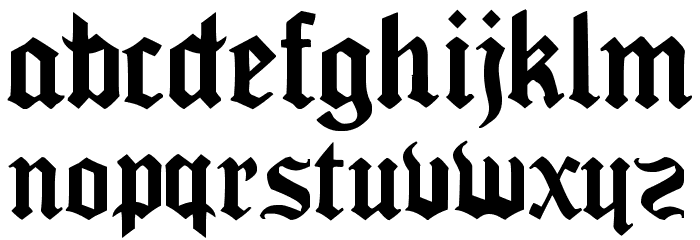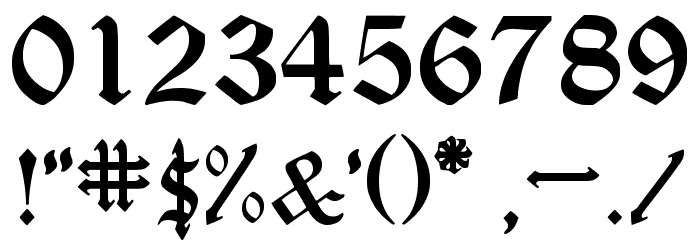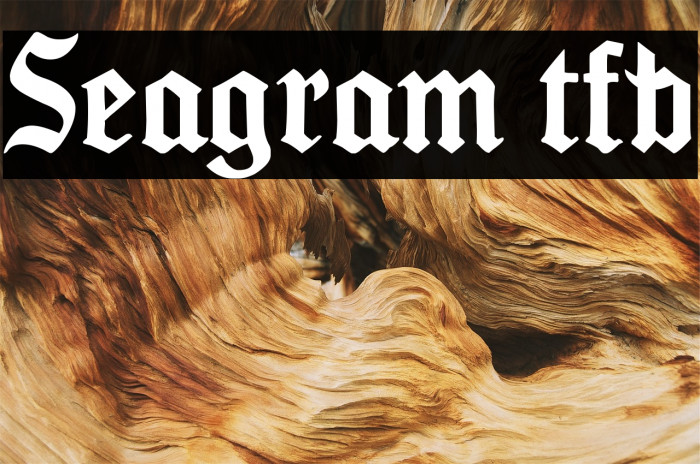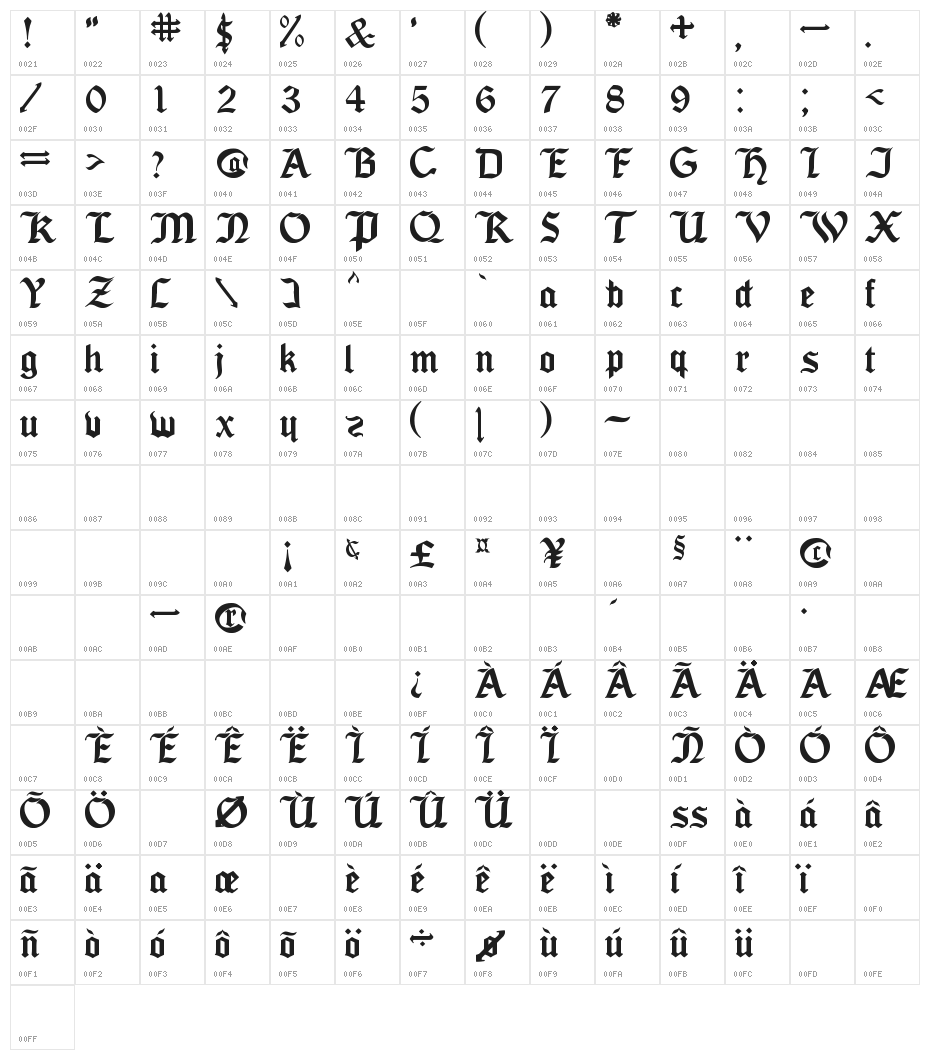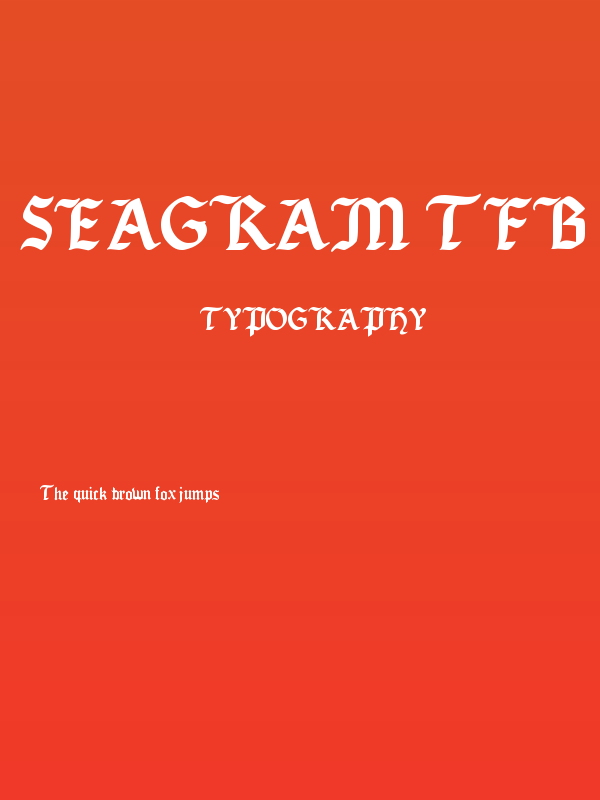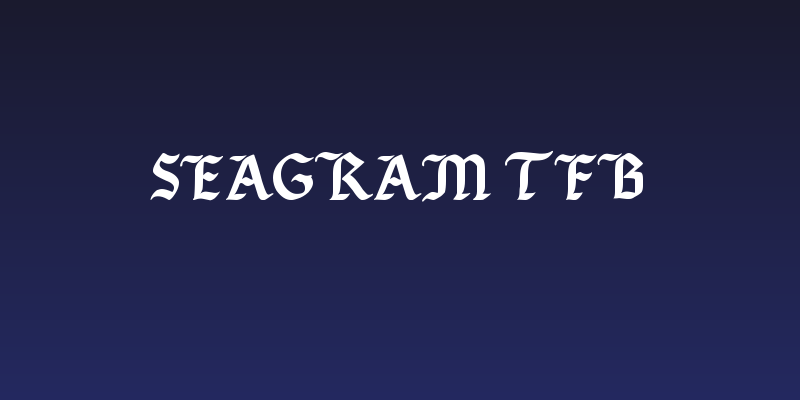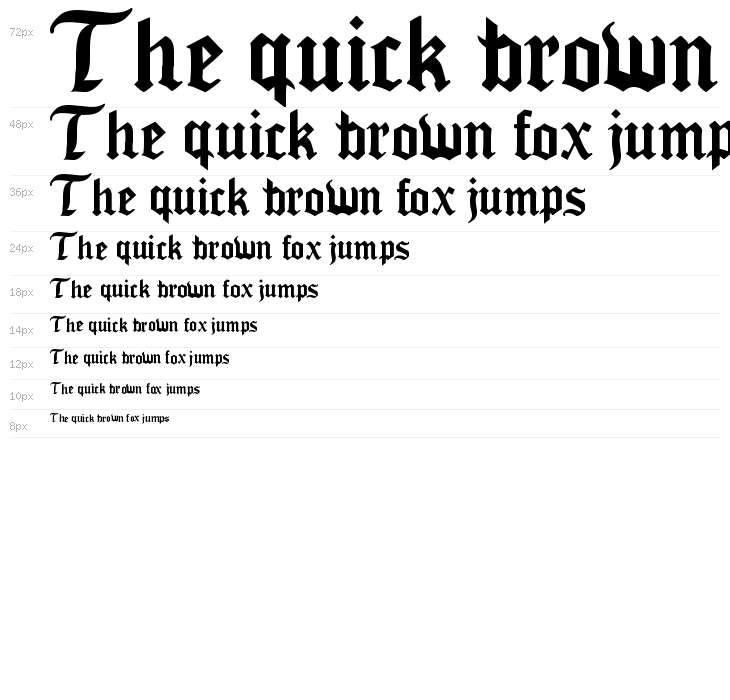
Seagram tfb Font
This font features a bold and striking blackletter style, reminiscent of medieval script. The uppercase letters are ornate with sharp angles and dramatic flourishes, while the lowercase letters maintain a consistent gothic aesthetic. Numbers and special characters are designed to match the overall theme, providing a cohesive look. The font's intricate design makes it suitable for projects that require a historical or formal touch.
A bold blackletter font with a medieval, gothic style.
- Proposed Projects: Ideal for historical documents, event invitations, branding for vintage products, or any design requiring a classic gothic touch.
- Overall Style: Vintage
- Use Case: Logos, Headlines, Decorative text